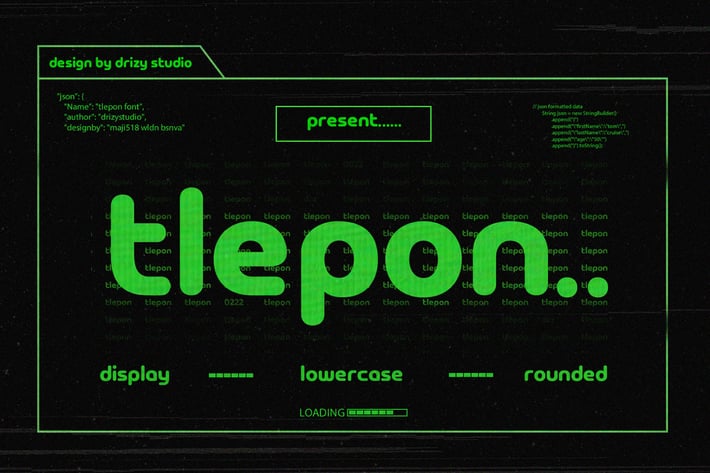
Tlepon - Display Lowercase Rounded Font
Tlepon is a Display Lowercase Rounded Font from Drizy studio. Offering all the basic styles you will need for a modern or techno project.
Tlepon Features:
Multilinguals & Ligatures